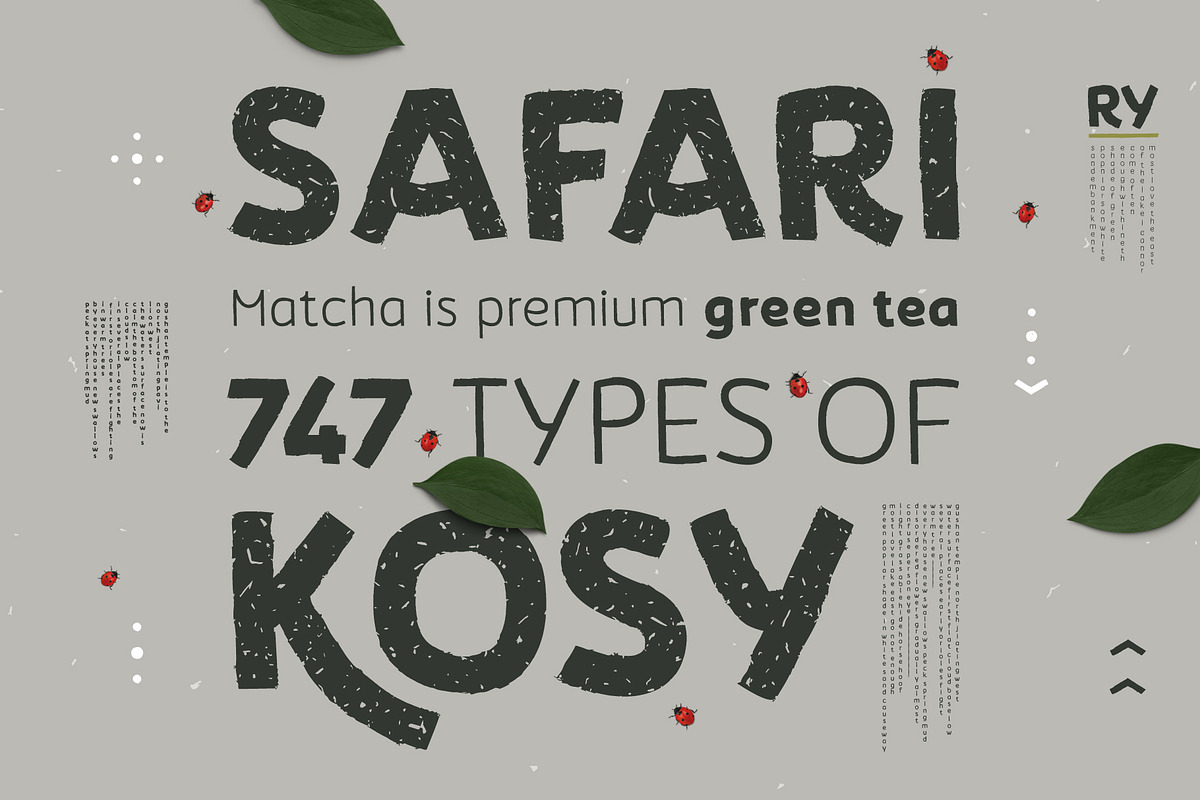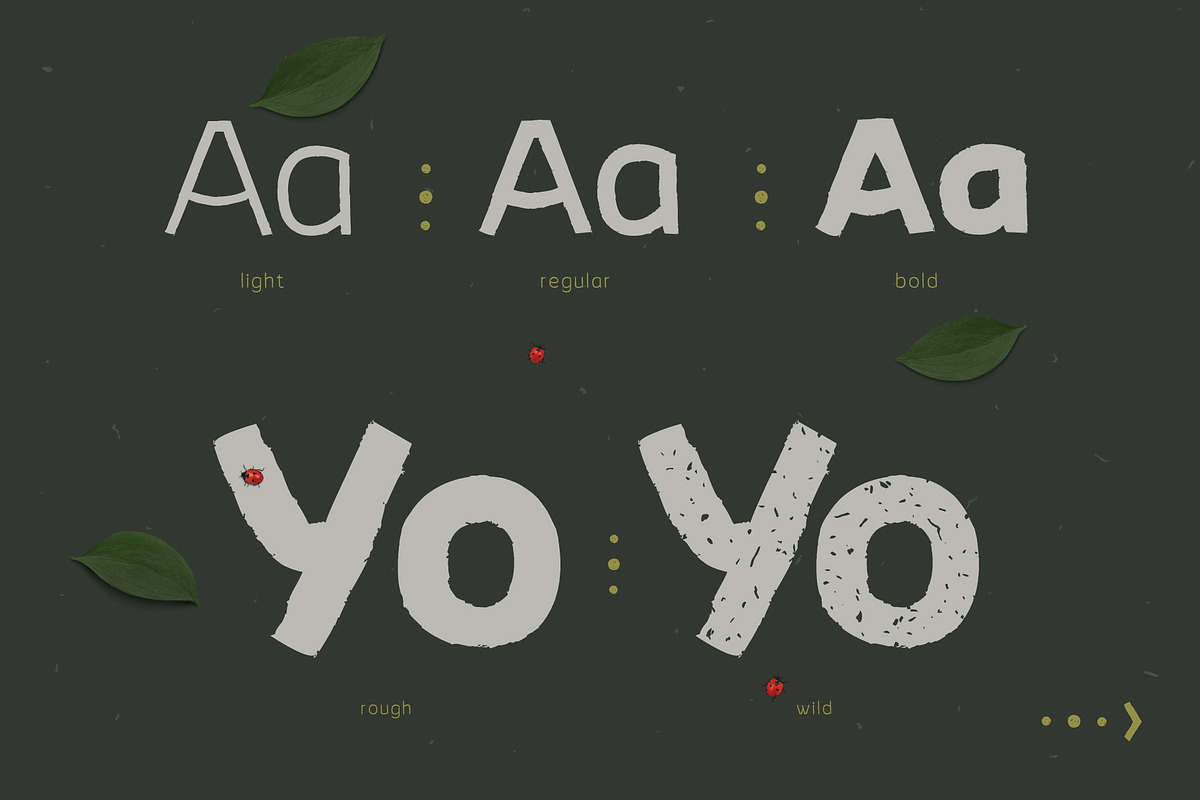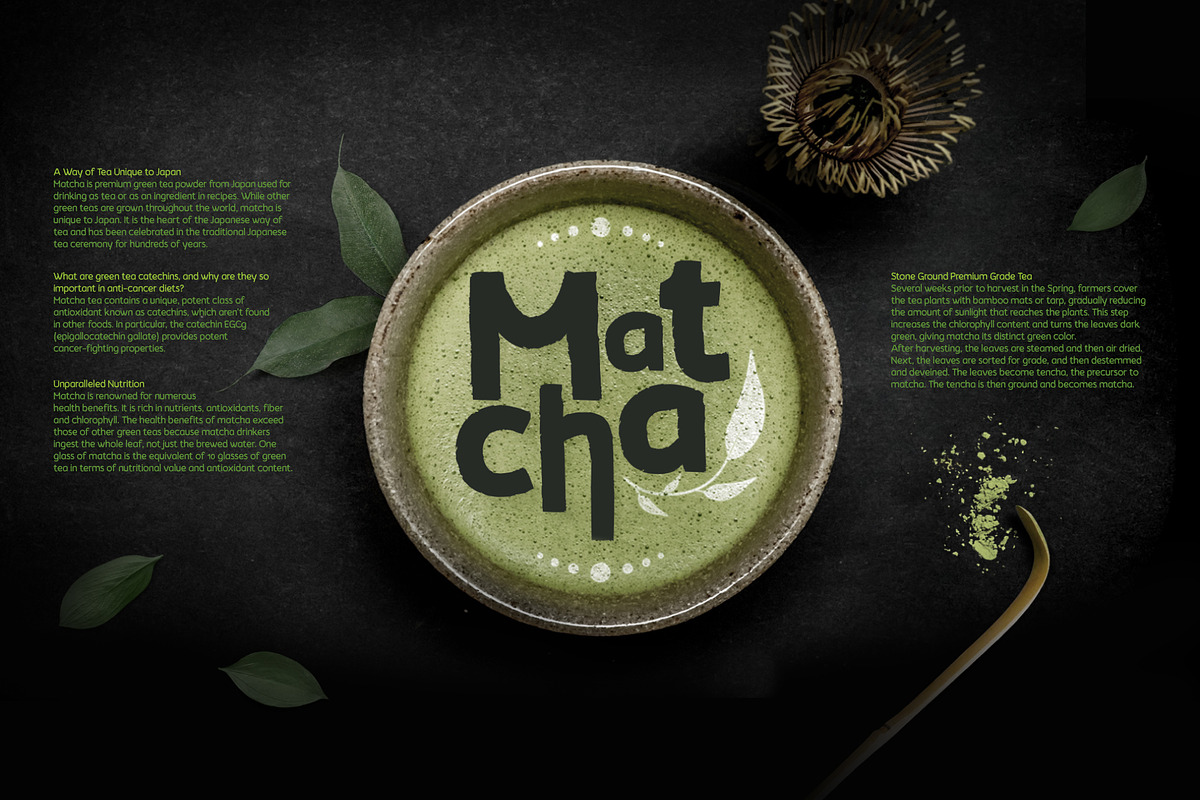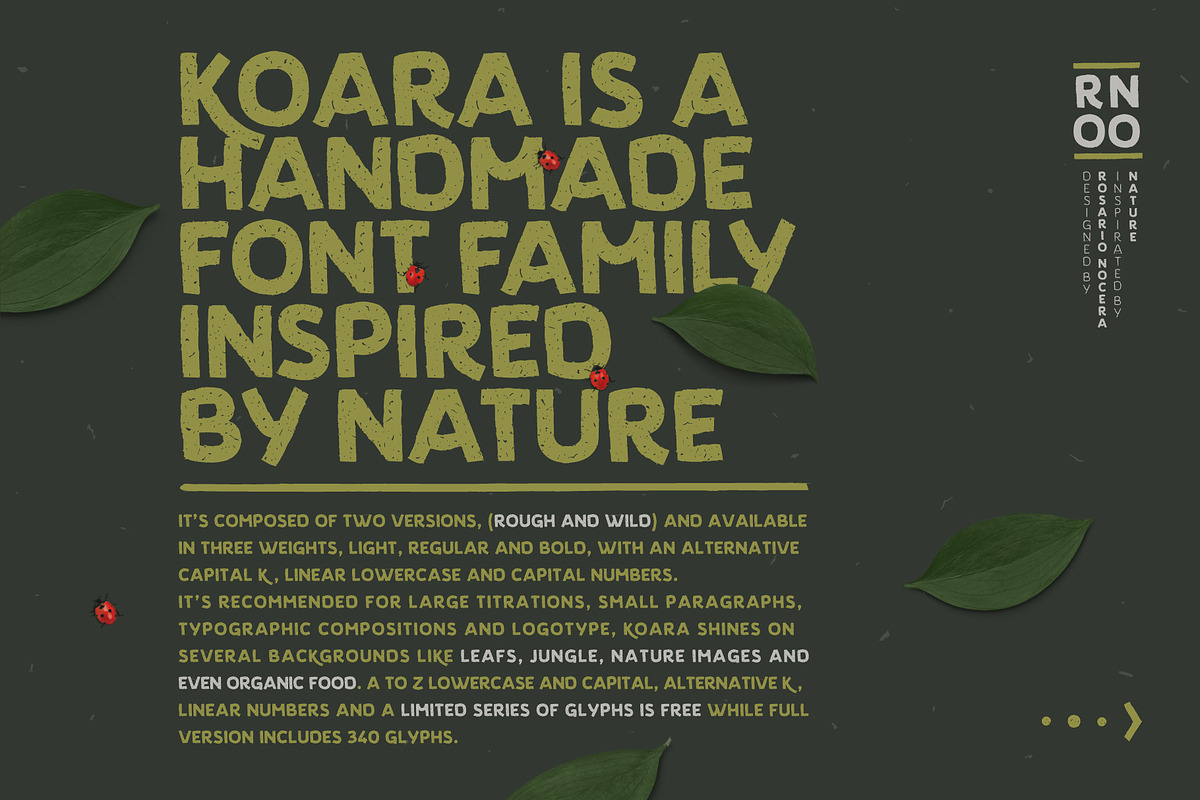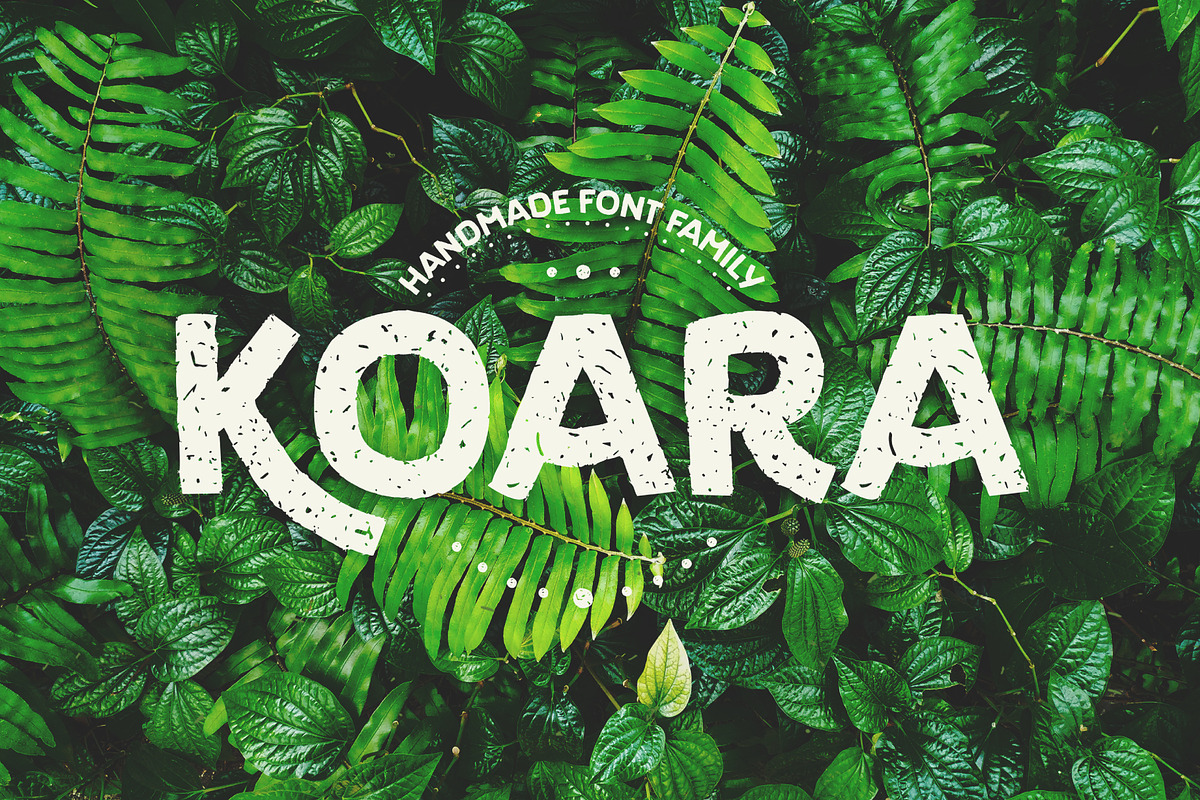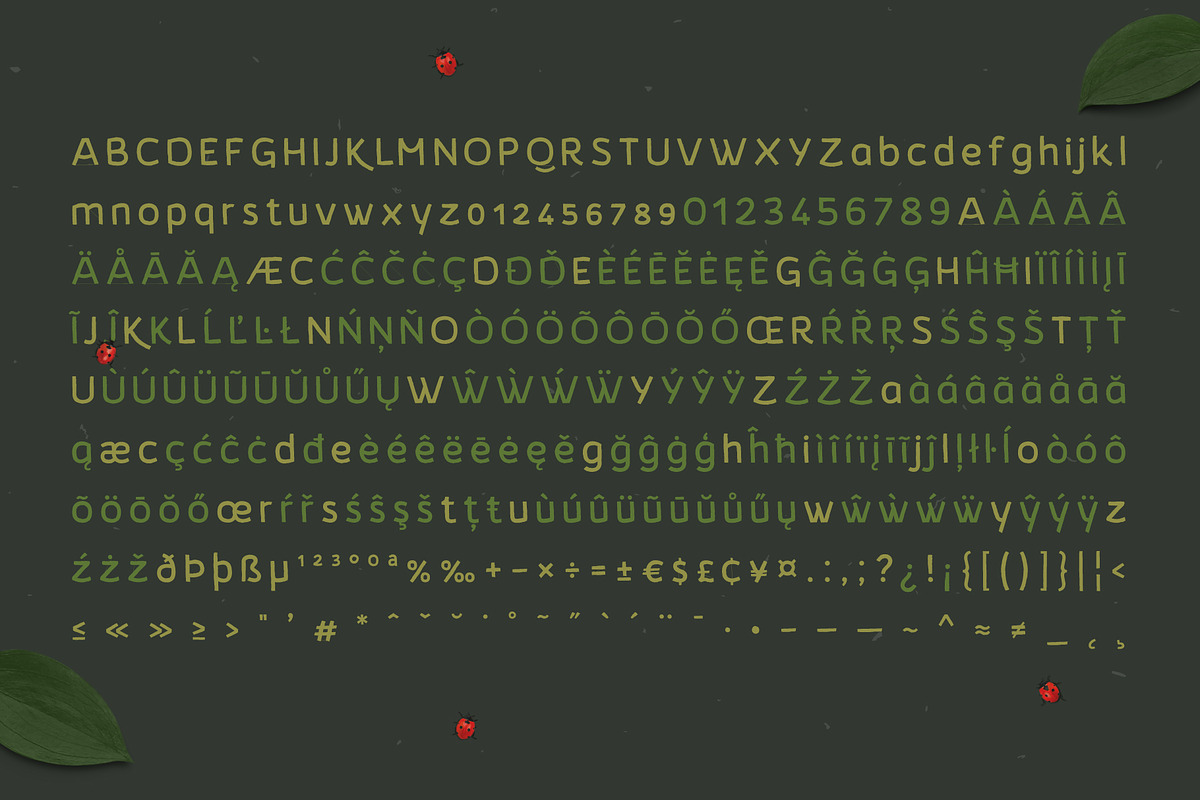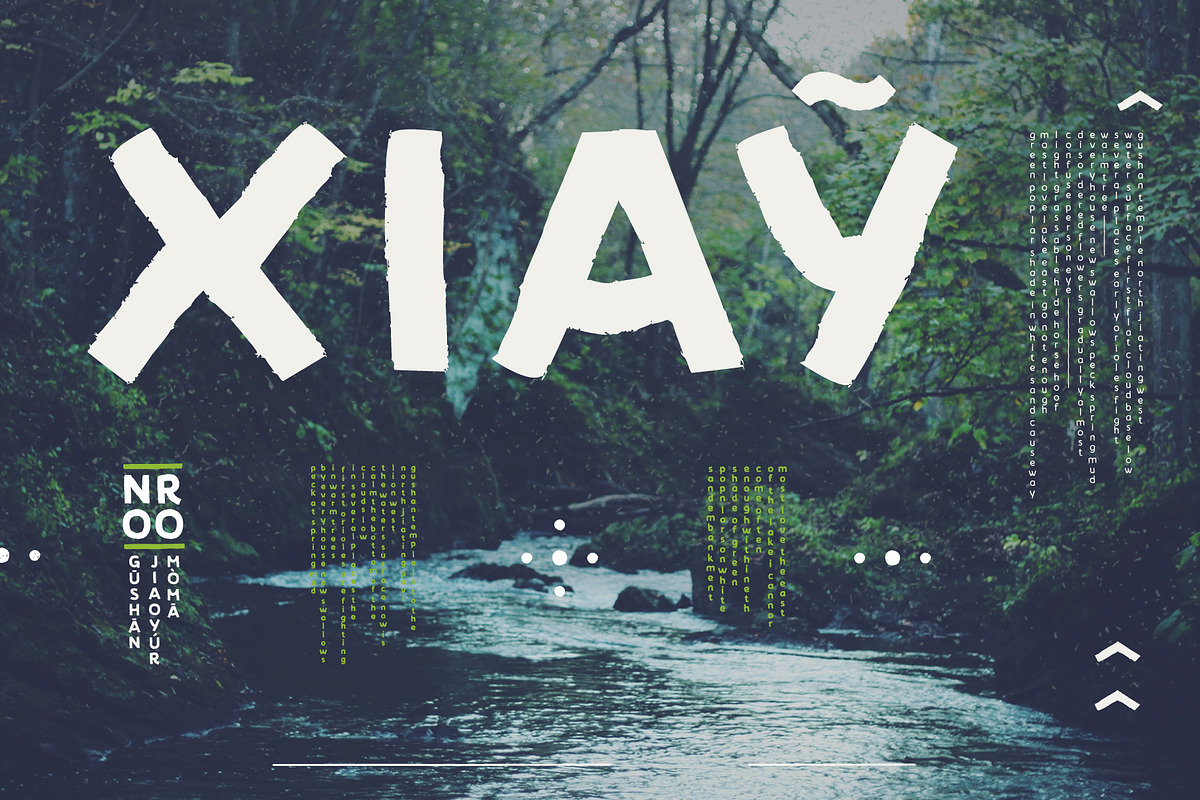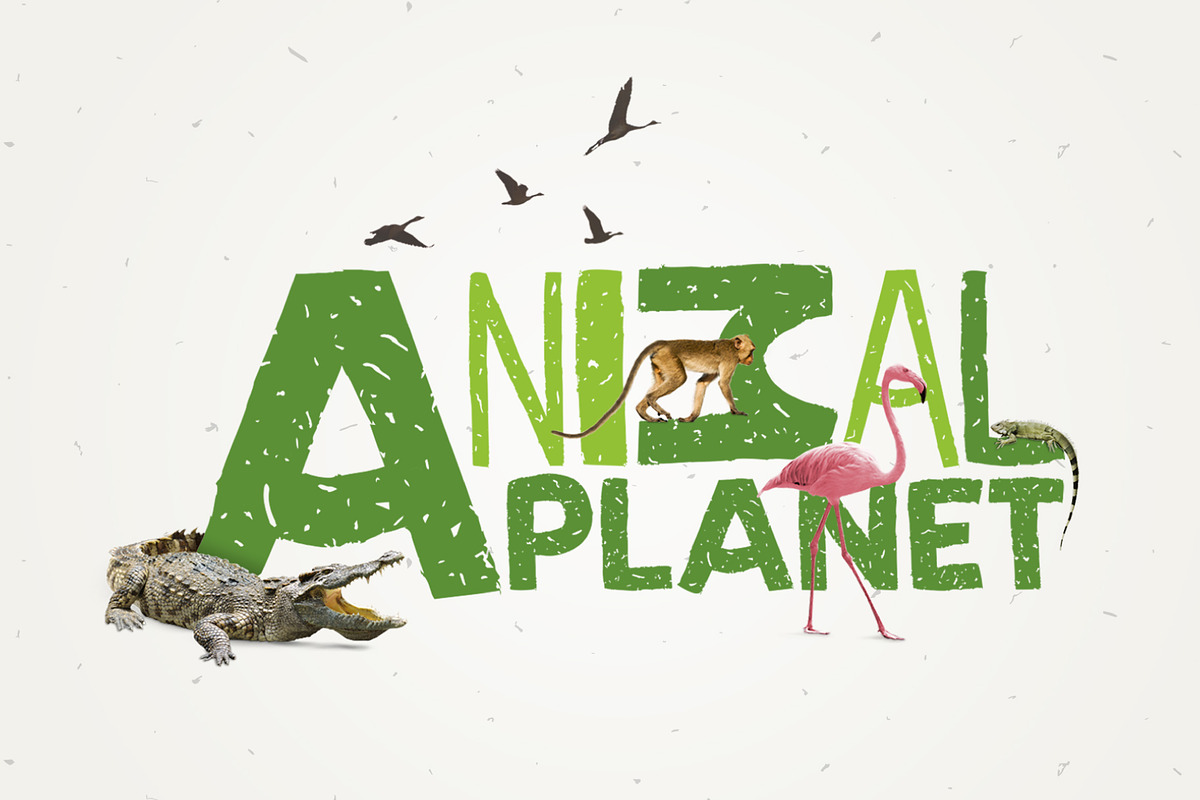
Koara / handmade font family
Koara is a handmade font family inspired by nature. It’s composed of two versions, (rough and wild) and available in three weights, light, regular and bold, with an alternative capital K, linear lowercase and capital numbers. It’s recommended for large titrations, small paragraphs, typographic compositions and logotype, Koara shines on several backgrounds like leafs, jungle, nature images and even organic food. A to Z lowercase and capital, alternative K, linear numbers and a limited series of glyphs is free while full version includes 340 glyphs.
- A to Z lowercase and capital, alternative K, linear numbers and a limited series of glyphs is free while full version includes 340 glyphs.